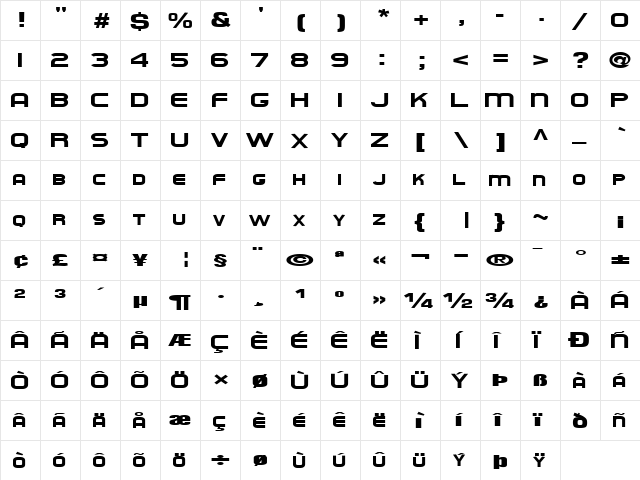
BurningFactsText79 Regular Font Preview
BurningFactsText79 Regular
Design Context for BurningFactsText79 Typeface
BurningFactsText79 is a composed and adaptable typeface that performs quietly and consistently across a wide range of design contexts.